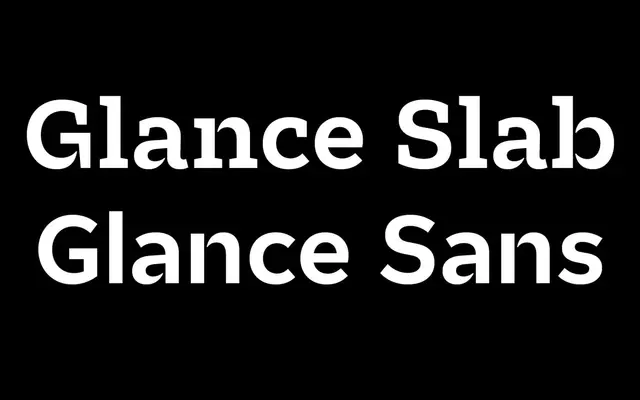
Glance Slab
Identity Letters · 2024
A slab serif with floating, disconnected strokes that produce a stencil-like sparkle at display sizes and act as ink traps at smaller settings.
The detached serifs and unjoined strokes are its defining feature: at large sizes they create a flickering, stencil-adjacent rhythm, while at body sizes the gaps function as ink traps, maintaining legibility. The 2024 update added italics, a stylistic set for an extreme stencil mode, and grew the glyph count to 730, covering Latin Plus with oldstyle figures, circled numerals and arrow sets. Designed as a companion to Glance Sans, the two families share proportions and can be paired across branding, posters and event signage.
A slab serif with deliberately detached serifs and disconnected strokes, creating a stencil-like character that sets it apart from conventional slab designs.